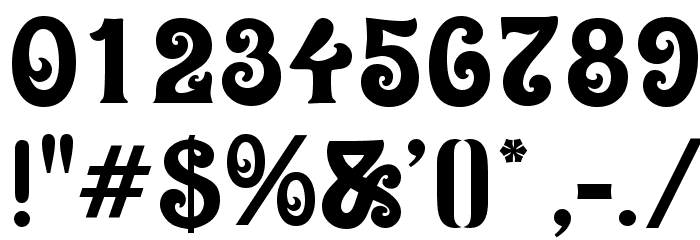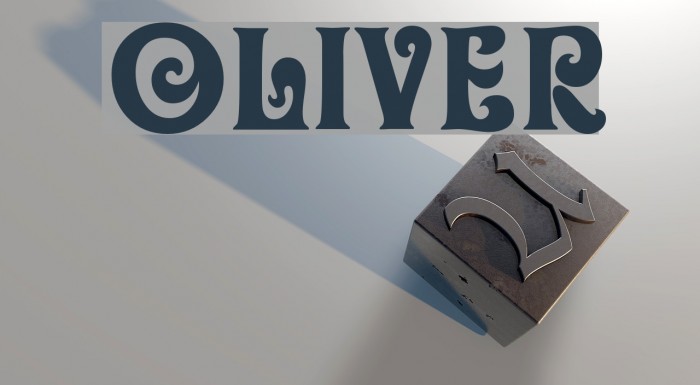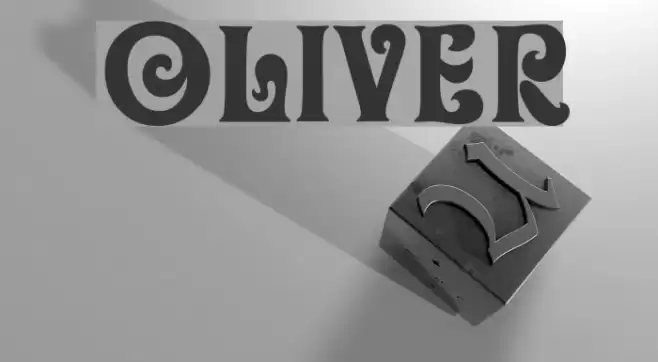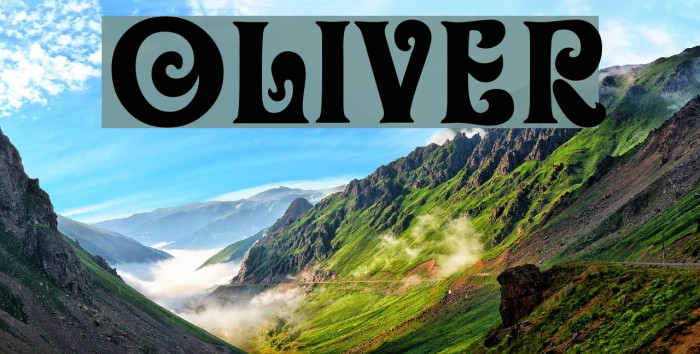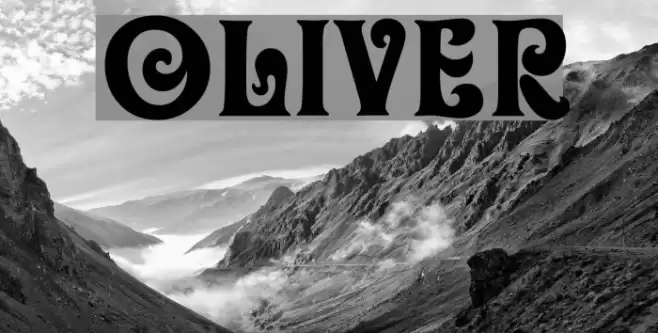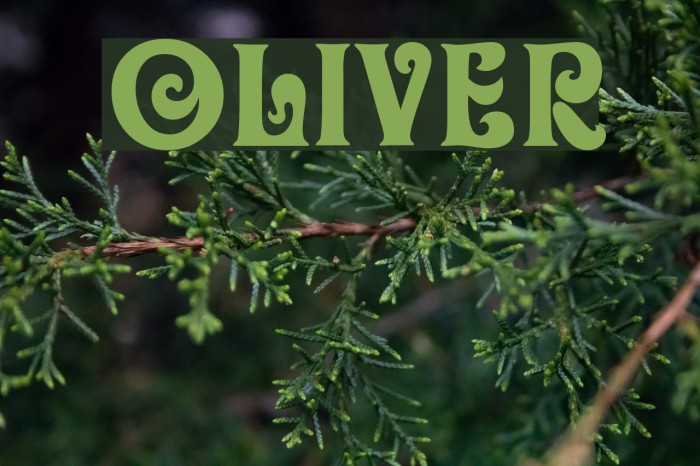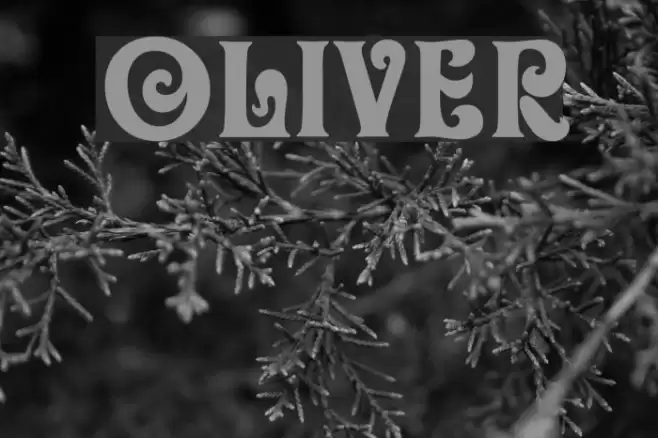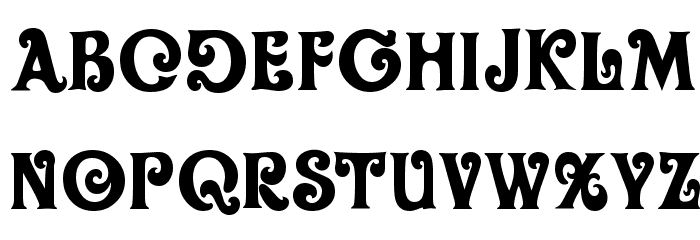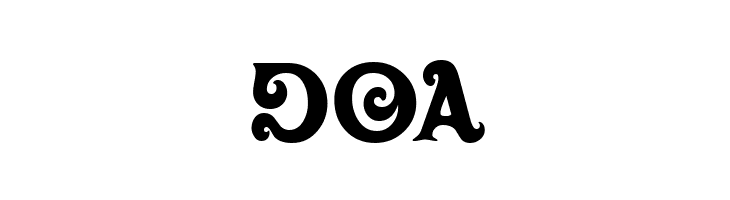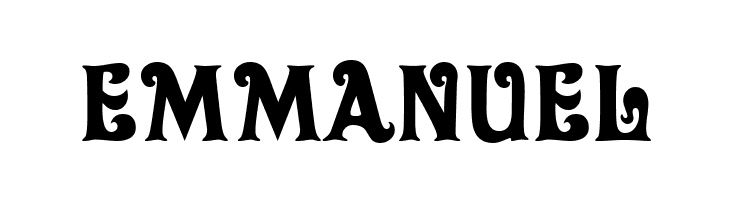
Oliver Font
Oliver Description
This font features a bold and decorative style with a playful and whimsical flair. The characters are designed with unique, swirling elements that add a sense of movement and creativity. The uppercase and lowercase letters maintain a consistent style, with exaggerated curves and loops that make each character stand out. The numbers and special characters follow the same design principles, ensuring a cohesive look across all elements. This font is perfect for projects that require a touch of fun and personality, making it ideal for creative branding, playful headlines, and eye-catching posters.
| Proposed Projects | Ideal for creative branding, playful headlines, and eye-catching posters. |